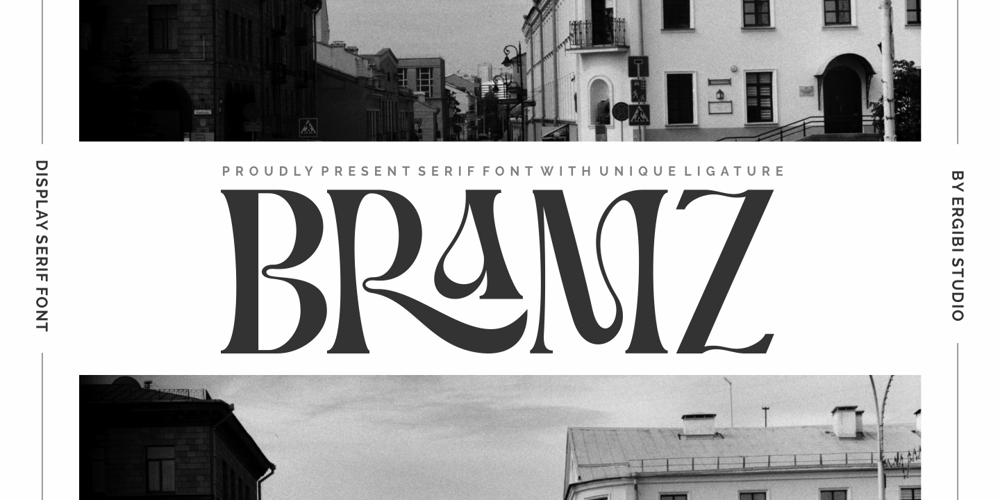
Bramz Font Family was designed by Riyadh Rahman and published by Ergibi Studio. Bramz contains 1 styles and family package options. BRAMS Display Serif Font. This font has unique and sleek letterform, make it great to be used for modern and minimalistic design theme. The unique ligatures on serif makes this typeface cool and stands out rather than the regular serif font, perfectly for headlines, logos, posters, packaging, T-shirts,coffee shops, restaurants, magazine’s headers, signs or gift/post cards,cafe’s and weddings or any type of advertising purpose.BRAMS only comes with an uppercase, Numeral, Punctuation, Ligature, and also Support Multi Language.if you have any Question please Message Me.Thank you ERGIBI STUDIO